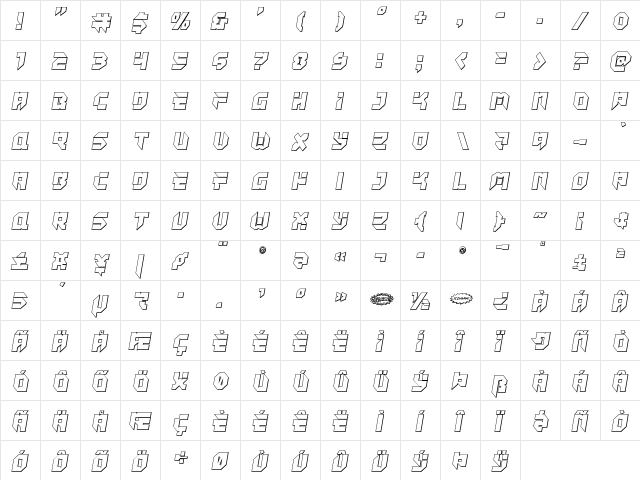
Tokyo Drifter Outline Outline
Design Context for Tokyo Drifter Outline Typeface
Tokyo Drifter Outline brings ornamental detail and strong personality to headlines and identities, where visual impact matters more than quiet functionality.
Font Pairing: Pair with a clean neutral sans-serif for body copy to let Tokyo Drifter Outline's character lead without overwhelming the composition.
Pro Tip: Use Tokyo Drifter Outline exclusively at display sizes — it was designed to be seen, not read at length. Let a neutral companion handle body copy.